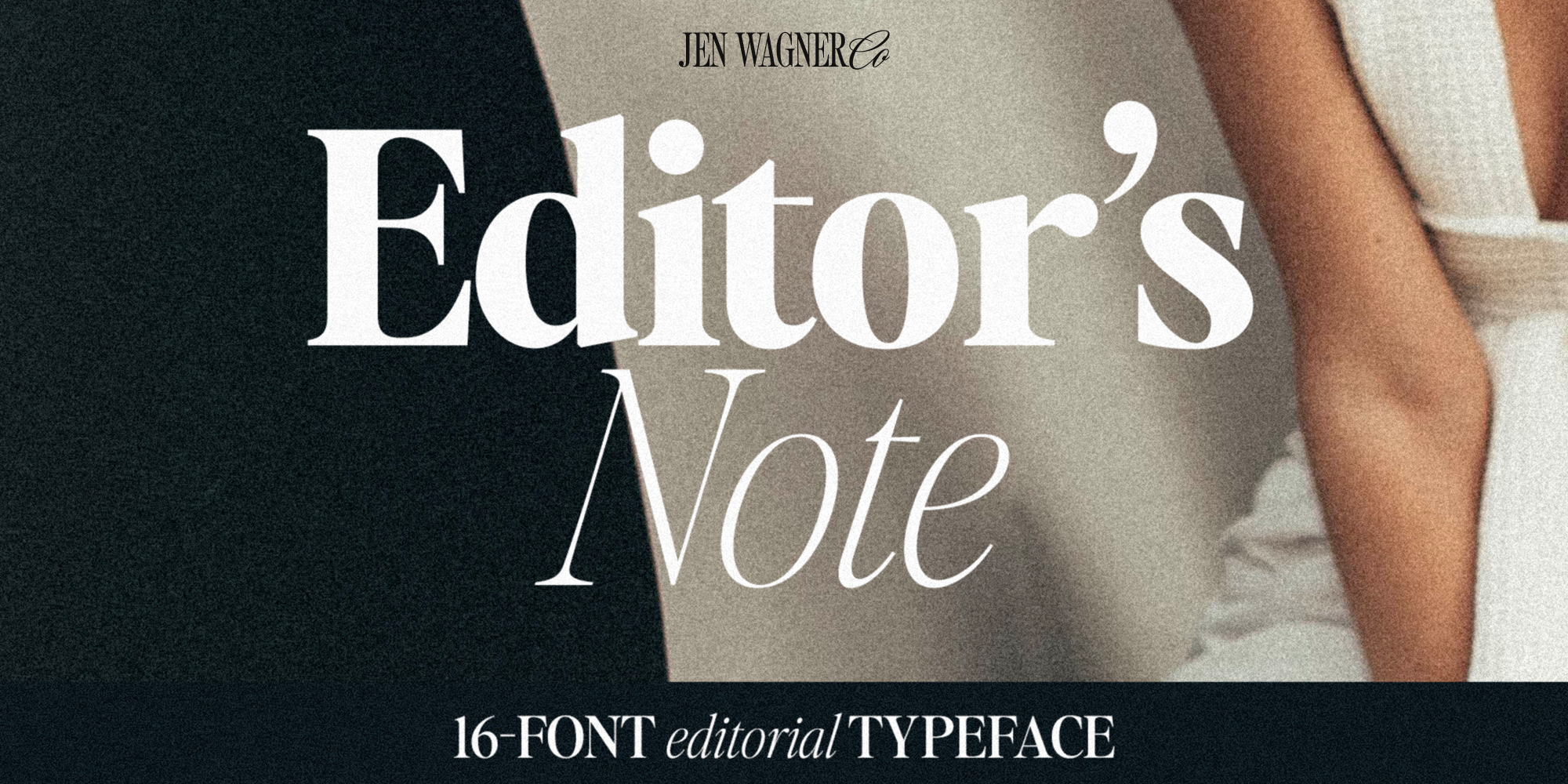
Editors Note Font is perfect for editorial design, magazine layouts, newspaper mastheads, literary publications, journal covers, academic papers, publishing house branding, manuscript presentations, book chapter headings, and professional correspondence. This sophisticated typeface excels in creating authoritative editorial presence across both print and digital publishing platforms.
What makes Editors Note Font exciting is its distinctive editorial character that combines journalistic authority with modern sophistication. The font features clean, sharp letterforms with subtle personality quirks that reflect the meticulous nature of professional editing. Its balanced proportions create an intellectual atmosphere that commands respect from readers and establishes credibility.
Editors Note Font family includes comprehensive styles: Regular, Bold, Italic, Bold Italic, Light, Medium, Condensed, and Extended versions. Each variant maintains the font's editorial integrity while providing designers with versatile options for creating sophisticated typography hierarchies and professional publication layouts.
This premium editorial typeface brings professional credibility to projects requiring authoritative presentation. Whether you're designing publishing materials, editorial content, or journalistic branding, Editors Note Font Free Download delivers exceptional readability and editorial sophistication. The font's careful character spacing and proportional design ensure optimal reading experience across various publication formats.